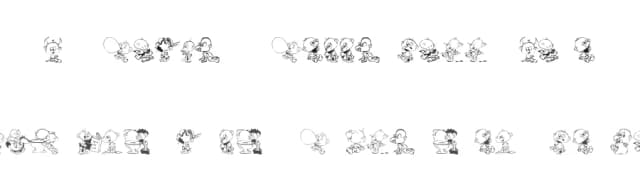
About DT Rachels Toys Font
DT Rachels Toys is a dingbat font designed by Dantingler. It includes 90 glyphs, a regular weight, TTF (TrueType) format, and 104 languages. DT Rachels Toys is free to download; check the license details on this page before commercial use. Dingbat fonts like DT Rachels Toys work best for icons, ornaments, bullet points, and decorative accents.
DT Rachels Toys Font is a versatile dingbats font that works for both headings and body text. Pair it with a contrasting sans-serif or serif font to add visual interest and a clear distinction between titles and body copy.
DT Rachels Toys Font
by Dantingler
DT Rachels Toys Font is a dingbats typeface by Dantingler, ideal for logos, invitations, branding, and creative projects.